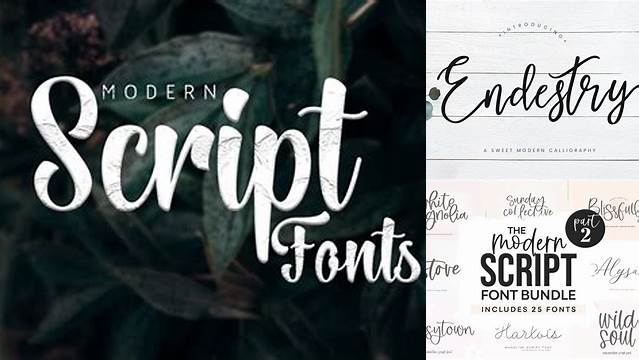
Free Modern Script Font Generator: Create Stylish Text!
Hey guys! Ever wanted to add a touch of elegance and personality to your designs? Look no further! Let's dive into the world of modern script font generators and how you can snag them for free. Whether you're crafting invitations, designing logos, or just want to spice up your social media posts, the right script font can make all the difference. So, let's get started!
What is a Modern Script Font?
Before we jump into the generators, let’s understand what a modern script font actually is. Modern script fonts are typefaces that mimic handwriting, but with a contemporary twist. Think flowing lines, elegant curves, and a touch of sophistication. Unlike traditional scripts that might feel a bit old-fashioned, modern scripts are designed to be fresh, stylish, and versatile.
Key Characteristics of Modern Script Fonts
- Fluidity: The letters seamlessly connect, creating a natural, handwritten feel.
- Elegance: These fonts often have refined details, making them suitable for high-end designs.
- Versatility: Modern script fonts work well in various contexts, from digital to print.
- Readability: While still stylish, they maintain a level of readability that some traditional scripts lack.
Why Use Modern Script Fonts?
Modern script fonts can elevate your design projects in several ways. They add a personal touch, making your work feel more human and approachable. They can also convey a sense of luxury and sophistication, perfect for branding and marketing materials. Plus, they’re incredibly eye-catching, helping your designs stand out from the crowd.
Why Use a Font Generator?
Okay, so why should you even bother with a font generator? Well, not everyone is a design whiz or has access to expensive design software. Font generators are super handy tools that let you create cool-looking text without needing any special skills or software. They’re perfect for whipping up quick designs for social media, personal projects, or just to play around with different styles.
Benefits of Using Font Generators
- Accessibility: You don’t need to be a professional designer to use them.
- Cost-Effective: Most generators offer free options, saving you money on expensive fonts or software.
- Time-Saving: Create stylish text in seconds without the hassle of manual design.
- Versatility: Many generators offer a wide range of font styles and customization options.
Top Free Modern Script Font Generators
Alright, let's get to the good stuff! Here are some awesome free modern script font generators that you can start using right away.
Fontspace
FontSpace is a treasure trove for font enthusiasts. It boasts a massive collection of fonts, including a wide variety of modern script fonts, and the best part? Many of them are free for personal and commercial use. The site is user-friendly, making it easy to search, preview, and download your favorite fonts. You can filter your search to specifically find script fonts that fit your needs.
DaFont is another fantastic resource for finding free modern script fonts. The site is straightforward, with a clean interface that makes it easy to navigate. Fonts are categorized by style, making it simple to find what you're looking for. DaFont's extensive library includes a wide range of script fonts, from elegant and refined to playful and quirky. Each font comes with a preview, so you can see how your text will look before you download it.
One of the best features of DaFont is the ability to filter fonts by license type. This is crucial for ensuring that you're using the fonts legally, especially for commercial projects. Many fonts on DaFont are free for personal use but may require a license for commercial use. Always check the details before downloading to avoid any copyright issues. With its vast selection and clear licensing information, DaFont is a go-to resource for designers and hobbyists alike.
FontStruct
FontStruct is a unique and innovative free font generator that allows you to create your own fonts using geometric shapes. While it may seem a bit complex at first, FontStruct offers a user-friendly interface that makes the process surprisingly accessible. You can design your own modern script fonts from scratch or modify existing fonts to create something truly unique. The possibilities are endless!
FontStruct is perfect for those who want to take their font game to the next level. It's not just about downloading fonts; it's about creating them. The platform provides a grid-based editor, where you can arrange geometric shapes to form letters and characters. You can also collaborate with other users and share your creations with the FontStruct community. This collaborative aspect makes FontStruct not just a tool, but a creative community where you can learn and get inspired. If you're feeling adventurous and want to create a font that's truly your own, FontStruct is the perfect place to start.